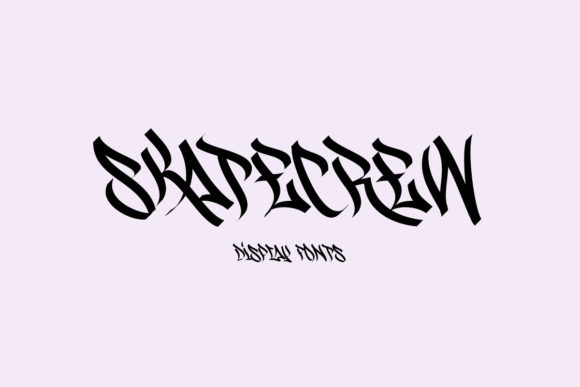
Unleash your inner graffiti artist with Skatecrew, the ultimate font for capturing the vibrant essence of street culture. Its broad, flat caps evoke the bold strokes of subway art, instantly transforming your designs into eye-catching masterpieces.
Embrace the rebellious spirit of graffiti with Skatecrew. This font's funky characters dance across the page, adding a touch of urban authenticity to your creations. Whether you're designing posters, flyers, or social media graphics, Skatecrew will infuse your work with an edgy, unforgettable style.
Elevate your designs to new heights with Skatecrew's versatility. Its unique characters effortlessly adapt to a wide range of projects, from street-inspired logos to playful packaging designs. Let your imagination soar as you explore the endless possibilities that Skatecrew offers.
Join the graffiti revolution with Skatecrew. This font empowers you to express your individuality and creativity like never before. Its bold strokes and vibrant energy will captivate your audience, leaving a lasting impression that whispers of urban rebellion and artistic freedom.